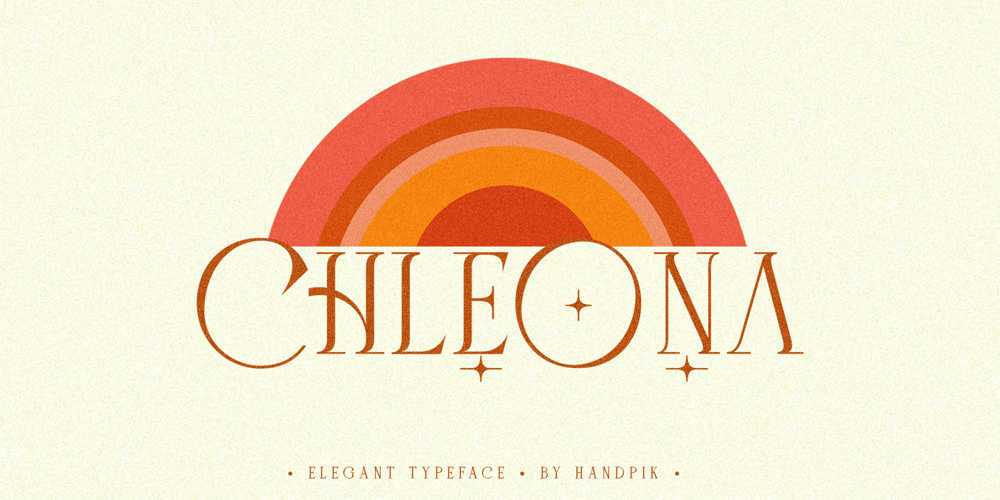
Chleona Font Family was designed by Muhammad Nurapik and published by Handpik. Chleona contains 1 styles and family package options. Hello, on this occasion, we would like to introduce a new font. which we named him “CHLEONA”, a font that we design with an elegant, stylish and simple shape at a relatively affordable price but has good quality. This font has the following advantages.Featured Uppercase Lowercase Numeral Functional Stylistic Ligature Multilingual